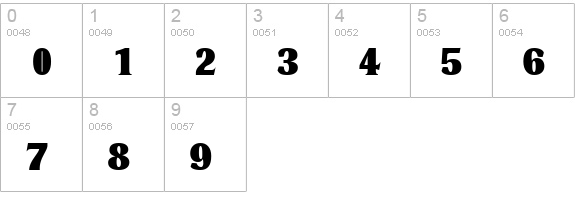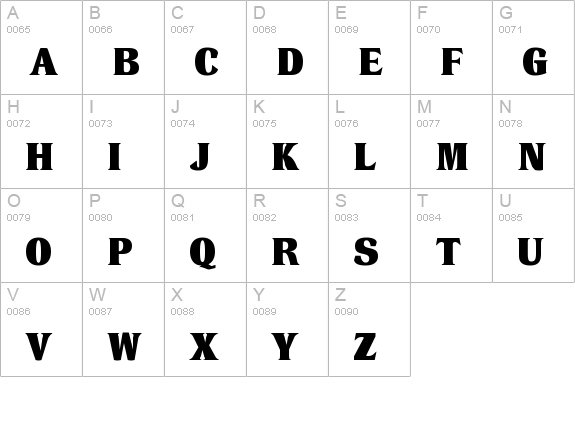
Dressel Black Regular is a maximum-weight, dramatic variant in the Dressel typeface family \xE2\x80\x94 well suited to maximum-impact headlines, posters, and packaging.
Dressel Black Regular font is a sleek and elegant typeface that exudes sophistication and modernity. With its bold and distinct letterforms, this font is perfect for making a statement in your designs. The sharp lines and clean curves of Dressel Black Regular font give it a timeless appeal that is both stylish and versatile. Whether you are designing a logo, creating branding materials, or working on a poster, Dressel Black Regular font will help you achieve a professional and polished look. The font's strong presence and readability make it a great choice for both print and digital projects. Best of all, Dressel Black Regular font is completely free to download at FontsMarket.com. This means you can start using this beautiful typeface in your projects right away, without having to spend a dime. Don't miss out on this opportunity to elevate your designs with Dressel Black Regular font. Download it today and take your typography to the next level!